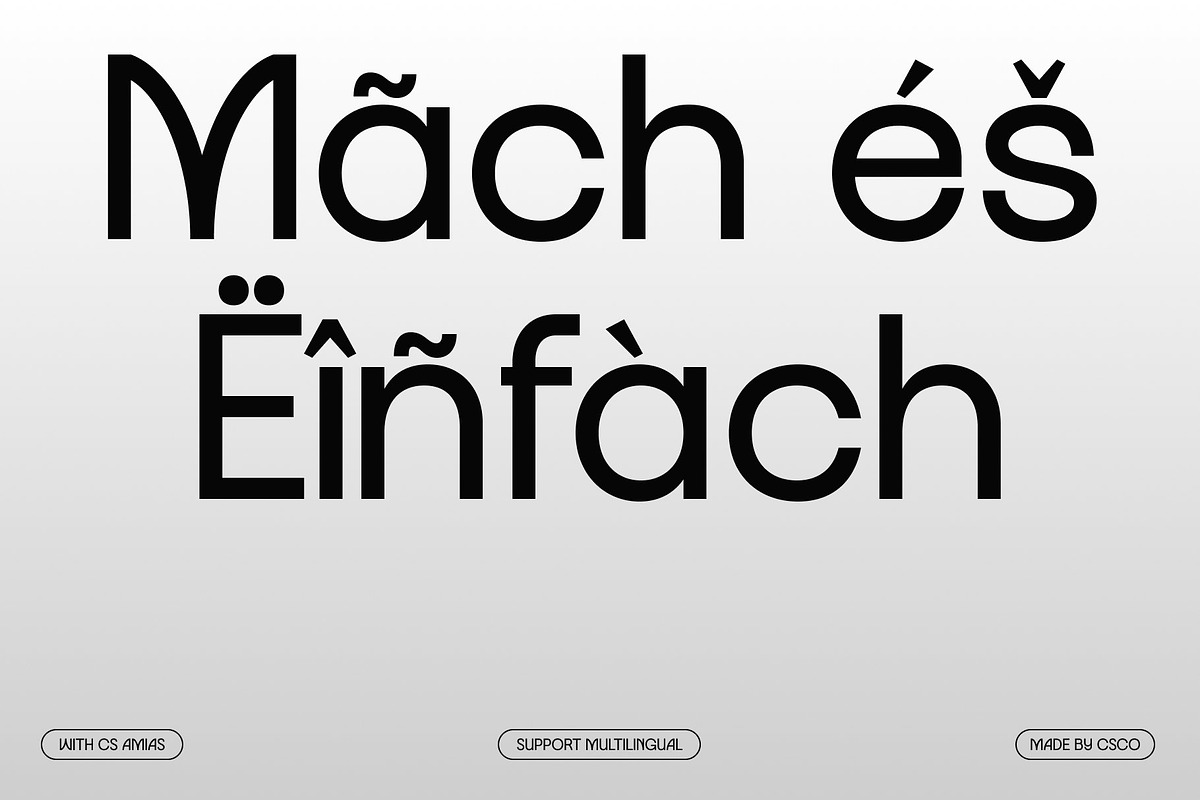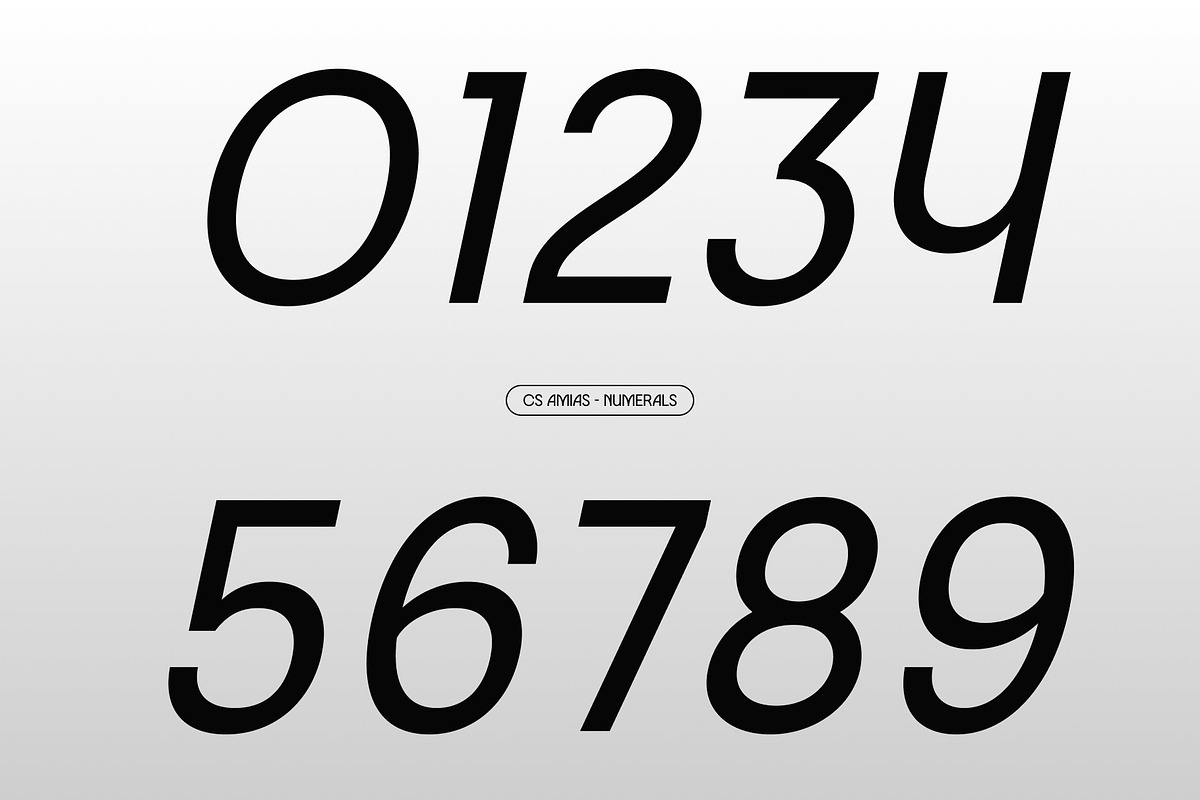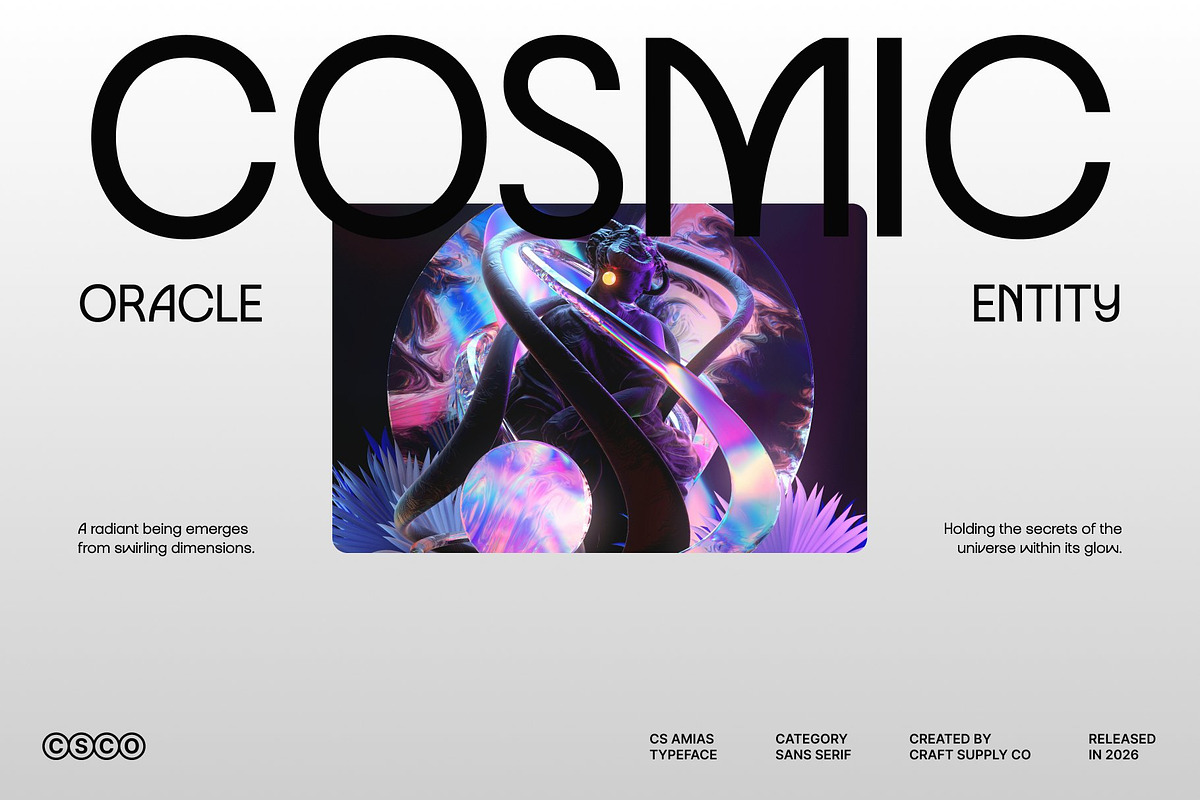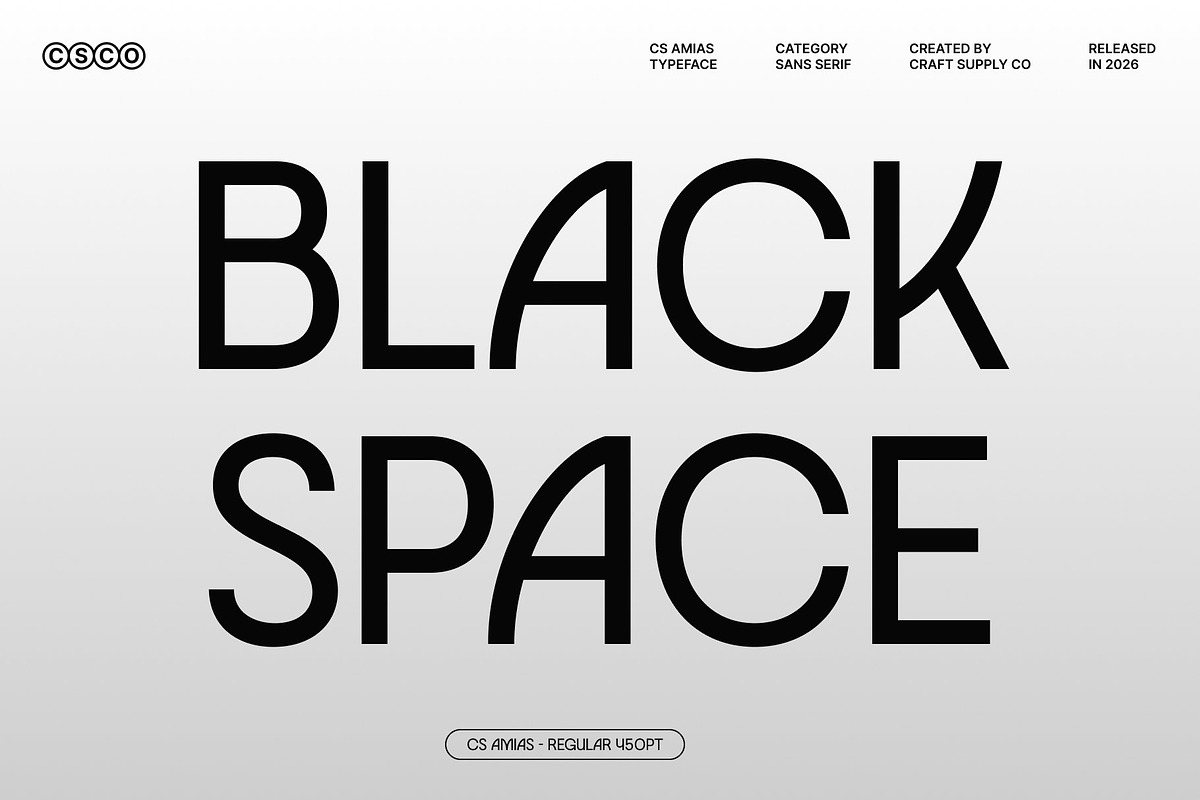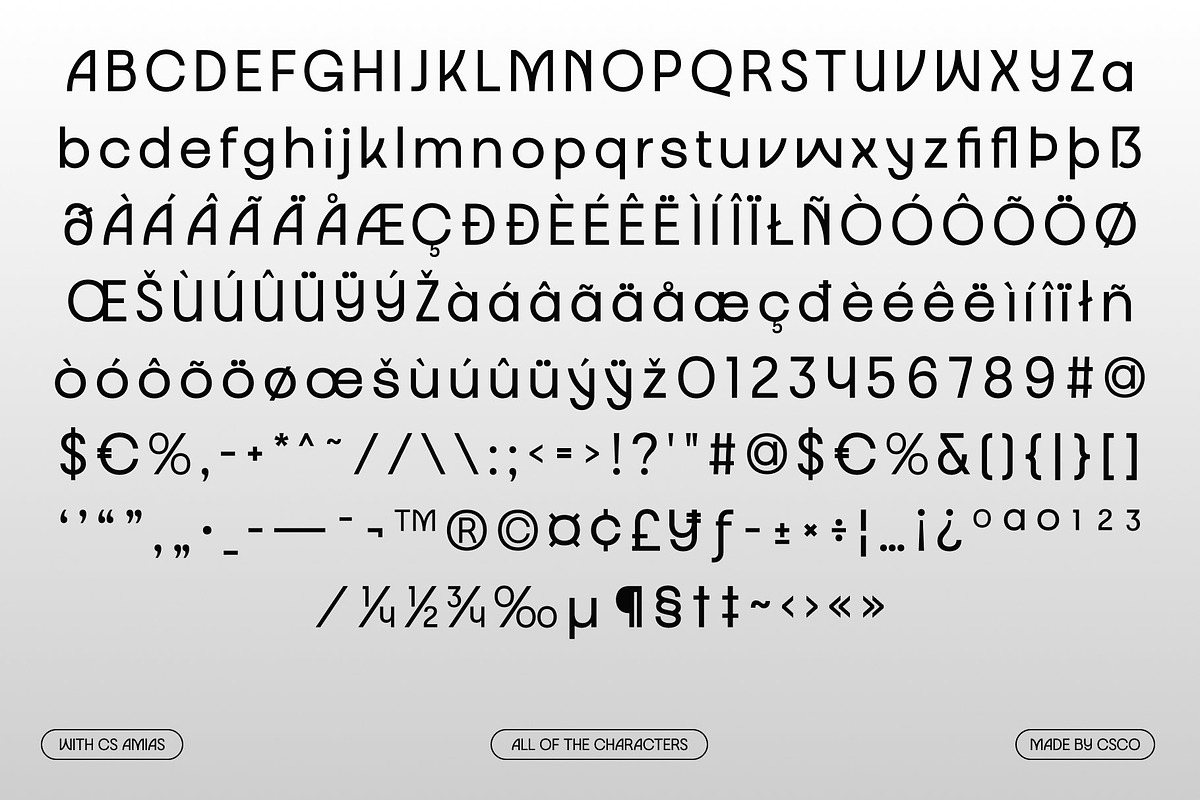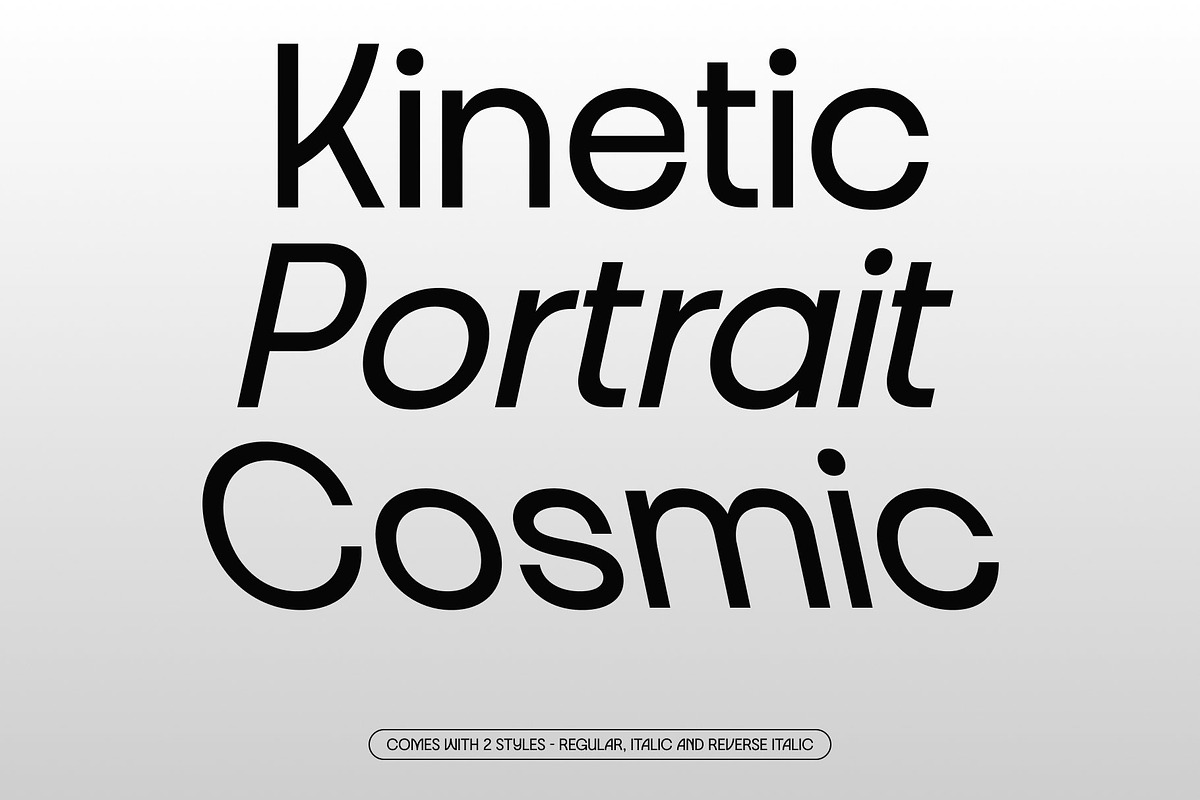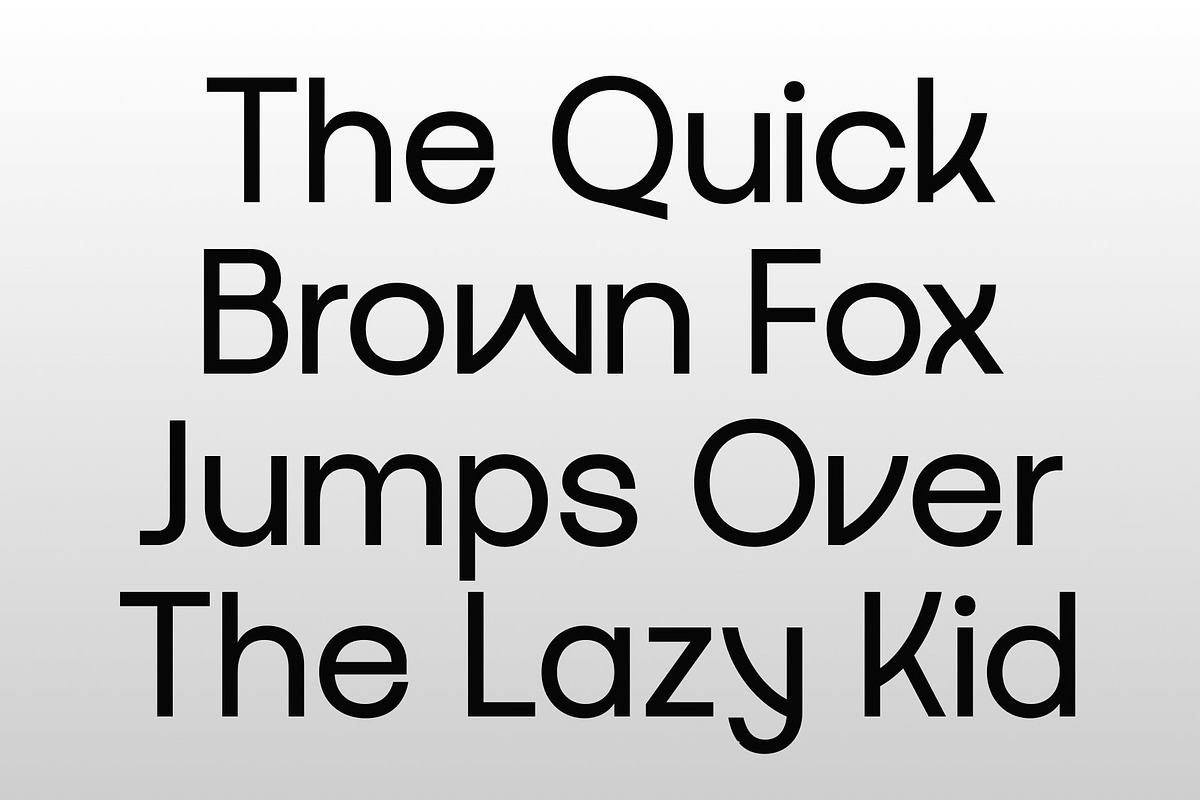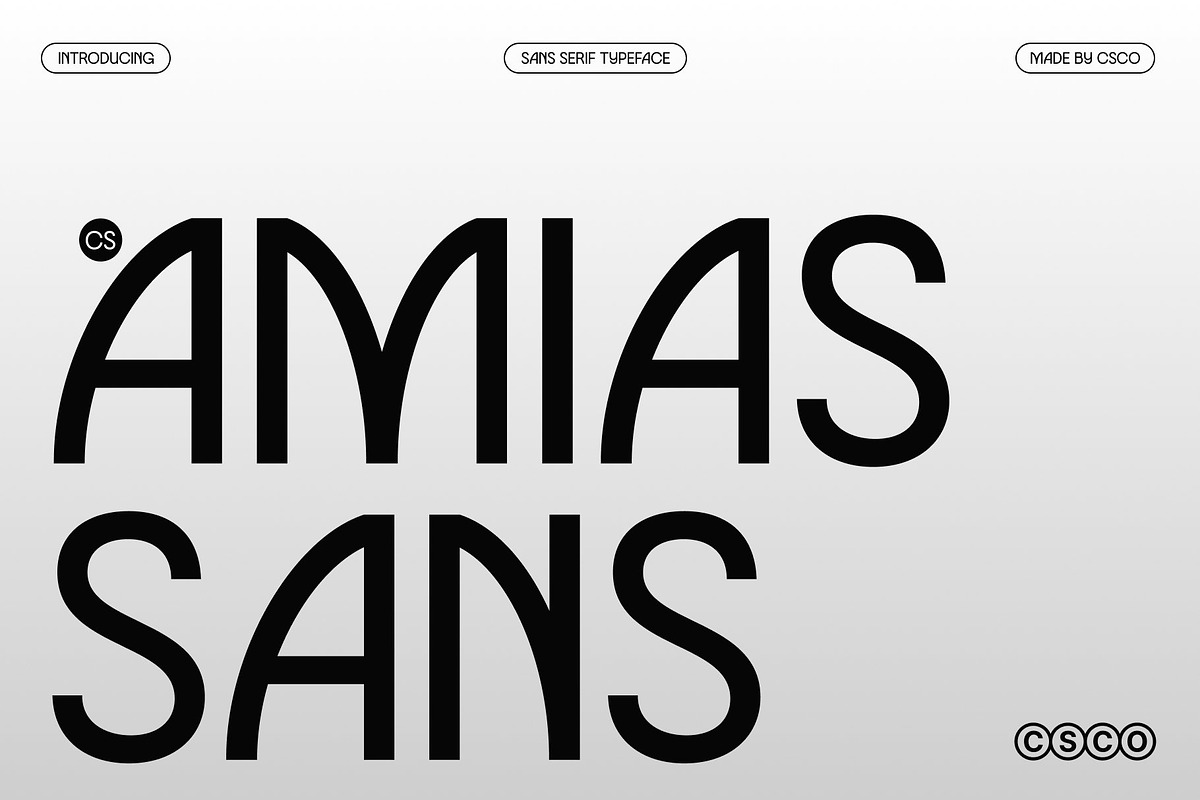
CS Amias – Modern Sans Serif
CS Amias – Modern Minimalism with Geometric Precision
Modern Sans Serif Font with Clean Geometry This is a modern sans serif font designed with a balanced combination of geometric structure and minimalist aesthetics. Its clean lines and well-proportioned letterforms create a fresh, contemporary appearance that feels both refined and approachable. This font is built to communicate clarity and modernity, making it an excellent choice for designers who value simplicity without sacrificing style.
Minimalist Design with Trendy Appeal The minimalist nature of gives it a sleek and uncluttered look, allowing content to stand out clearly and confidently. Subtle geometric influences add visual interest while maintaining a calm and controlled appearance. This blend results in a font that feels current and trendy, perfectly aligned with modern design sensibilities across digital and print media.
Balanced Structure for Versatile Use This font features balanced spacing and consistent stroke weight, ensuring strong readability in various design contexts. Its neutral yet stylish character allows it to adapt easily to different layouts, from bold headlines to clean supporting text. The geometric foundation provides structure, while the minimalist approach keeps the overall look light and elegant.
Perfect for Branding and Modern Design Designed for contemporary applications, this font is ideal for minimalist branding, modern logos, editorial layouts, web design, and promotional materials. Its clean and trendy impression makes it especially suitable for startups, creative studios, lifestyle brands, and modern visual identities.